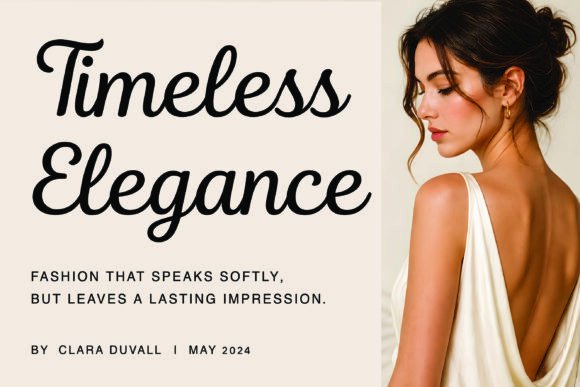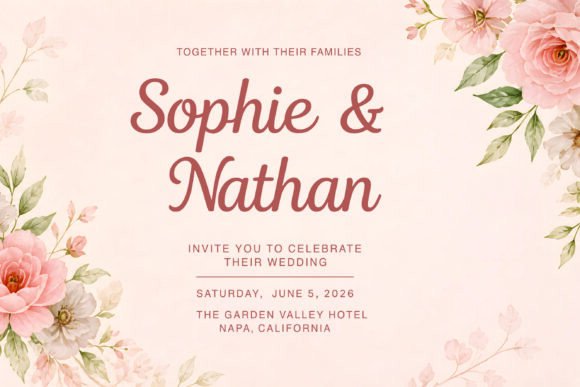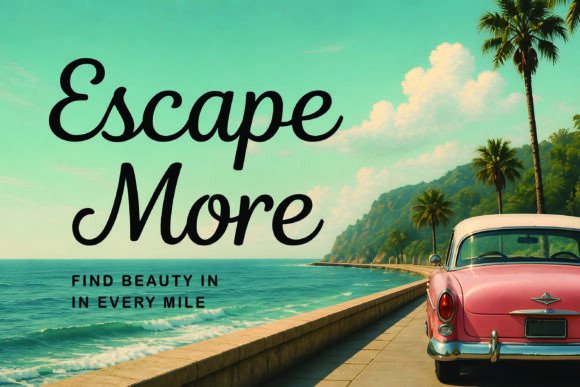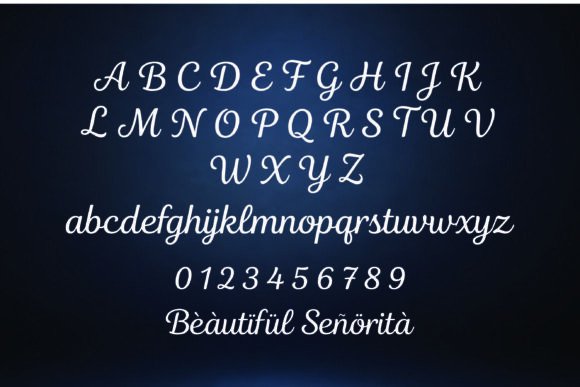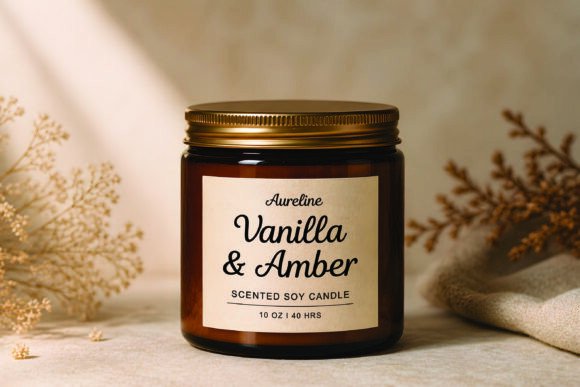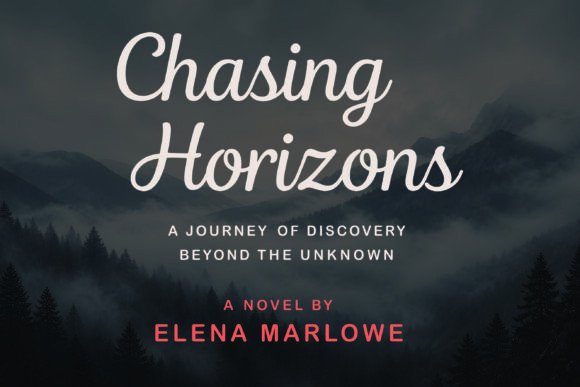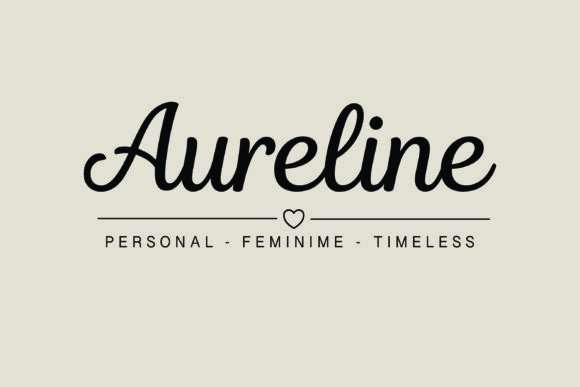
The Elegance of Aureline: A Timeless Script Font for Creative Projects
I’ll never forget the moment I stumbled upon the perfect font for a wedding stationery project. I had been searching for what felt like an eternity, trying out font after font, but nothing seemed quite right. That was until I discovered Aureline, a sophisticated script font that exuded elegance and grace. In this article, I’ll share my experience with Aureline, its features, and how to make the most of this beautiful typeface in your creative projects.
A Personal Review of Aureline
Aureline has quickly become one of my go-to fonts for luxury boutique branding, wedding stationery, and high-end lifestyle editorial headers. Here’s what I love about it:
• ✨ Refined monolinear weight for a clean and modern look
• ✅ Smooth, flowing rhythm that mimics professional calligraphy
• ✨ Delicate loops and balanced posture for a sense of polished artisanal prestige
• ✅ OpenType features, glyphs, and stylistic alternates for added versatility
While Aureline is an exceptional font, it’s not without its quirks. Here are a few things to keep in mind:
• ⚠️ May not be suitable for body text due to its script nature
• 🤔 Limited use of uppercase letters, which can make it less versatile for certain projects
The Story Behind Aureline
Aureline was designed with the intention of capturing a “personal, feminine, and timeless” essence. Its creator aimed to craft a font that would exude elegance and sophistication, while still feeling approachable and human. The result is a typeface that feels both curated and classic.
What is Aureline best suited for? Aureline is ideal for luxury boutique branding, wedding stationery, signature-style logos, and high-end lifestyle editorial headers.
Can I use Aureline for body text? While Aureline is a beautiful font, it’s not recommended for body text due to its script nature. It’s best used for headlines, titles, and short paragraphs.
Does Aureline have OpenType features? Yes, Aureline features OpenType features, glyphs, and stylistic alternates, which can be accessed in compatible design software.